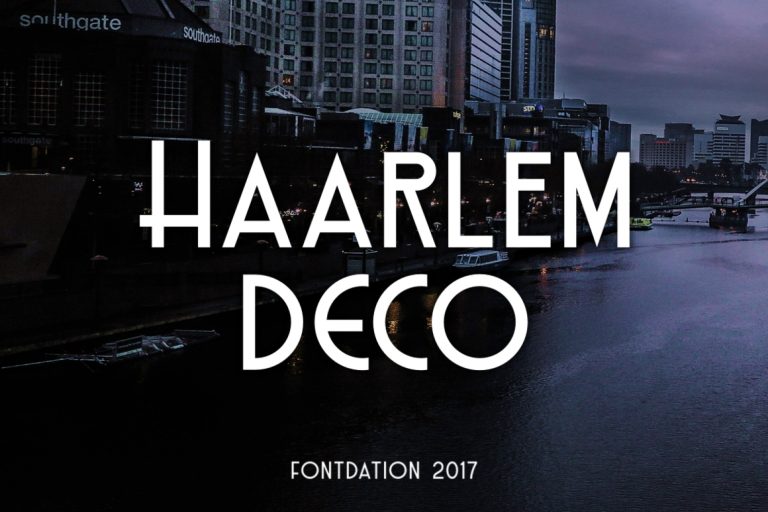
Haarlem Deco Typeface
Hi designer! I am happy to introduce you to a retro vintage font. Introducing Haarlem Deco Font! Haarlem Deco designed by Twicolabs Fontdation. Haarlem Deco – a classic-retro-vintage-all-caps-semi-condensed-sans-serif (phew!) typeface with an art-deco touch. We took an inspiration from the old Euro-American signage/advertising letters and mixed it with modern clean sans serif, carefully mouse-crafted to bring you the genuine feel of that era. If you’re into classic/vintage lettering designs, then this typeface will give you lots of pleasure!